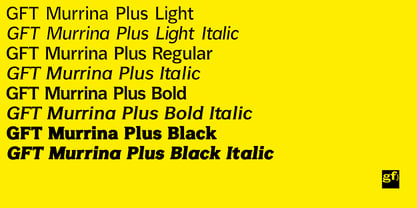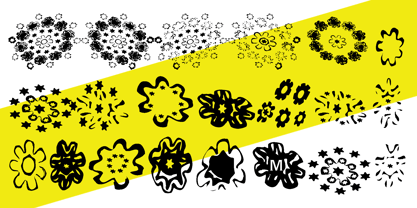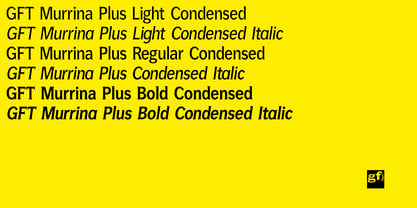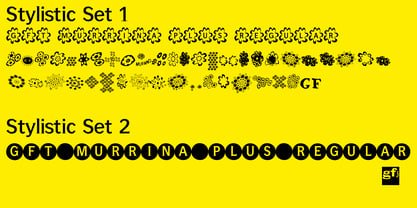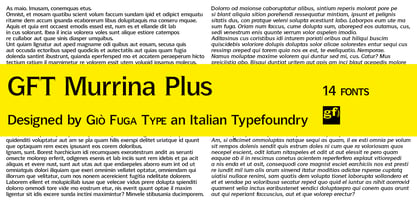
GFT Murrina Plus
GFT Murrina Plus is a distinctive "headline serif" font available in 14 style variants, designed by Giangiorgio (Giò) Fuga. This font builds upon the earlier GFT Murrina (1994 - 2002). Its name is inspired by the exquisite Venetian "murrina," a traditional Murano glass-making technique known for creating thousands of miniature "flowers." The Regular font includes two stylistic sets, making it ideal for corporate identity and editorial applications.